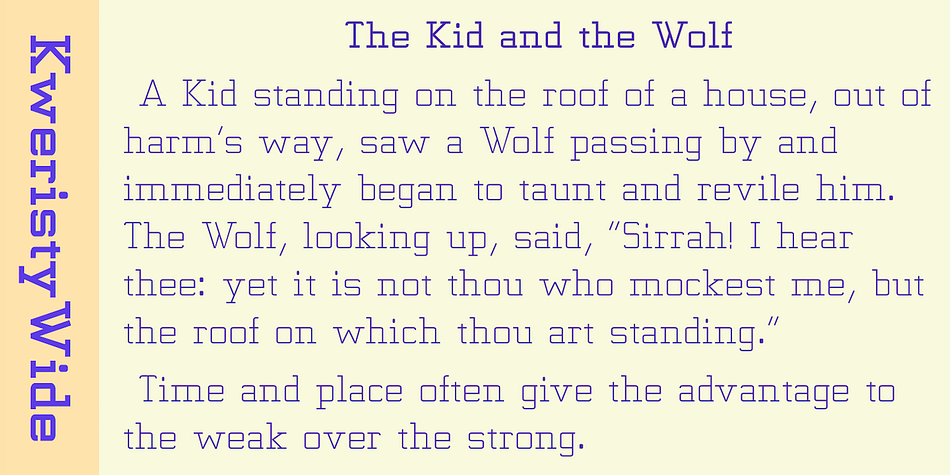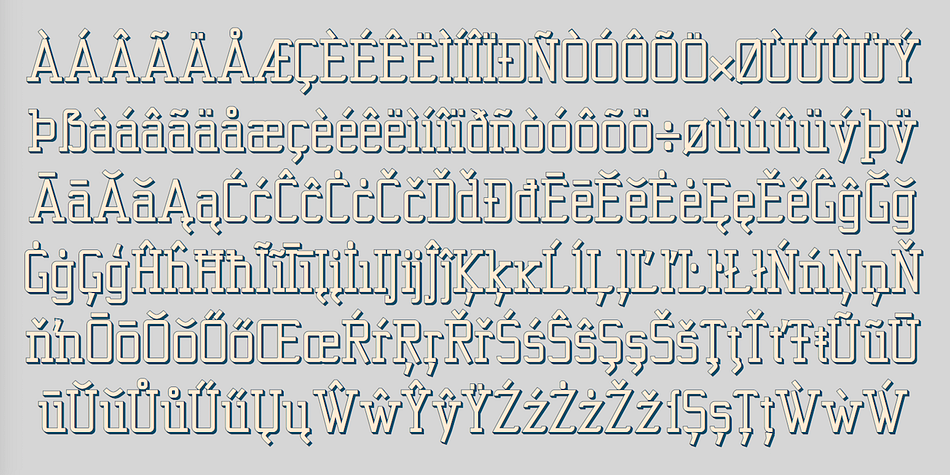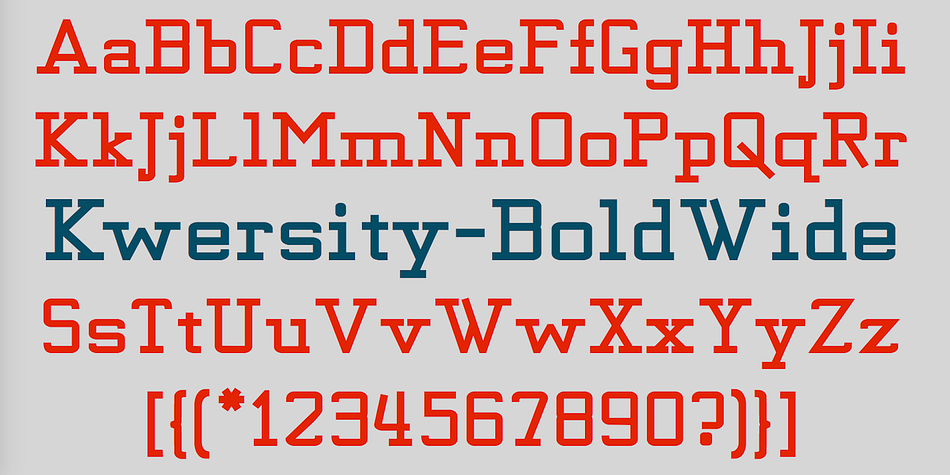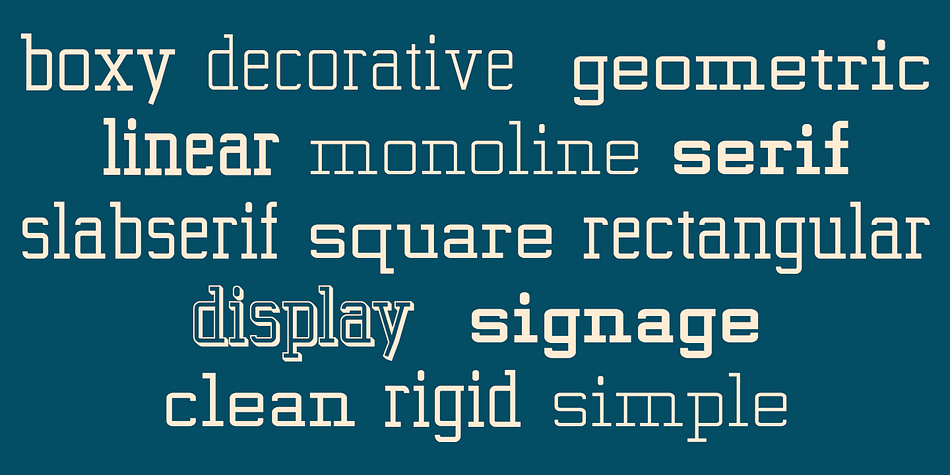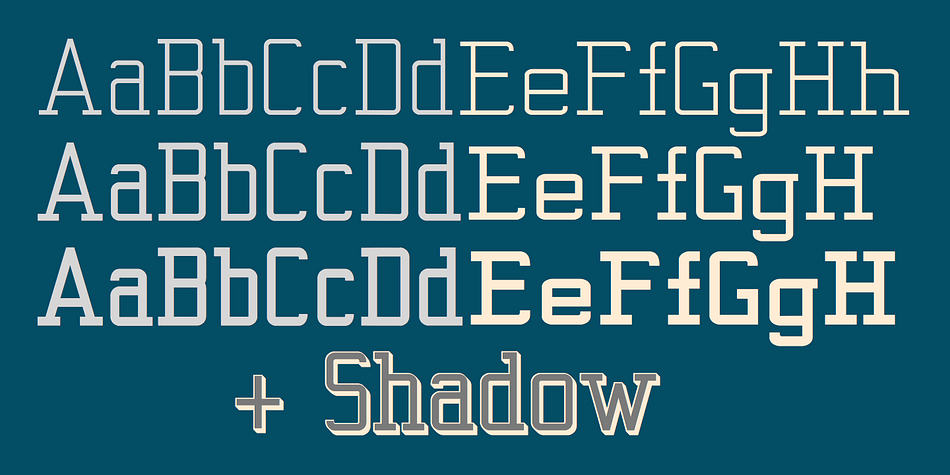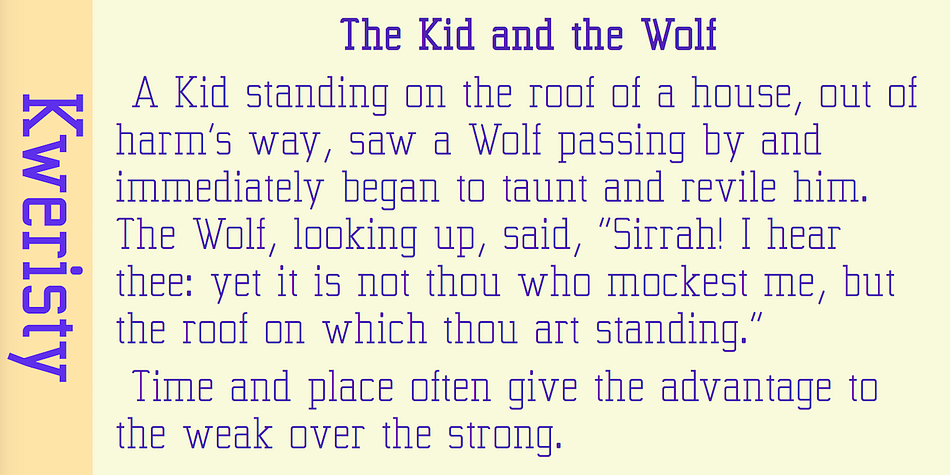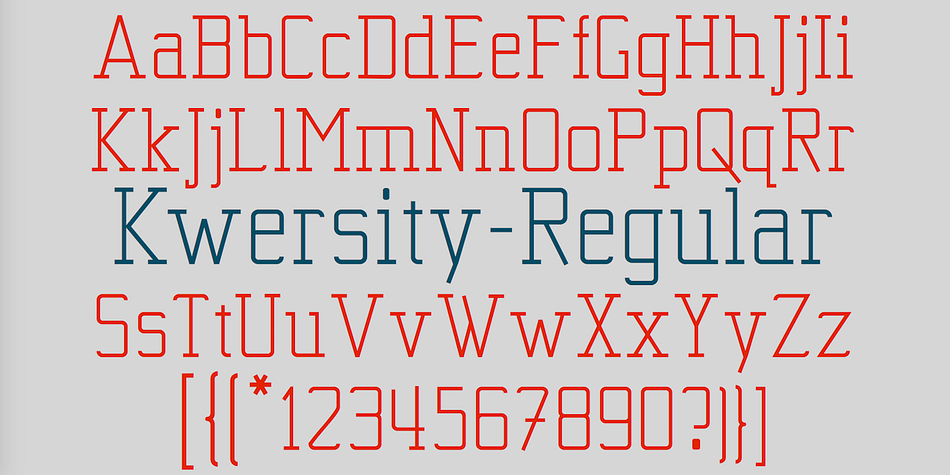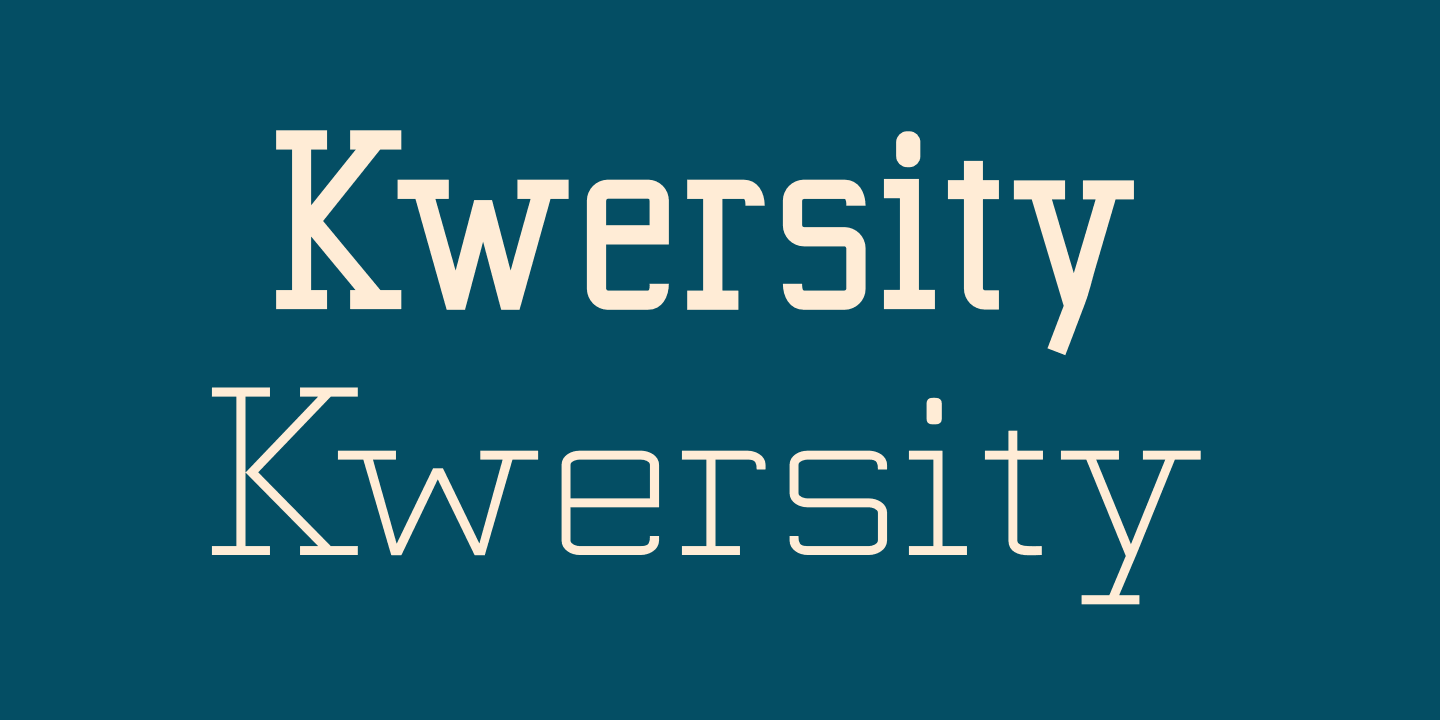
Designed by Robert Schenk, Kwersity is a serif and slab serif font family. This typeface has seven styles and was published by Ingrimayne Type.
Kwersity is a boxy, geometric, slab-serifed typeface with strokes of uniform weight. Its circular elements are almost rectangular. The narrower style has a high x-height. Both the narrower and wider variants come in three weights, regular, semi-bold, and bold. (In its original, pre-2020 form, what is now semi-bold was bold. What is now bold is new as of 2020.) There is also a shadow version; Kwersity-semibold can be layered on top of it to color the interior of the letters.